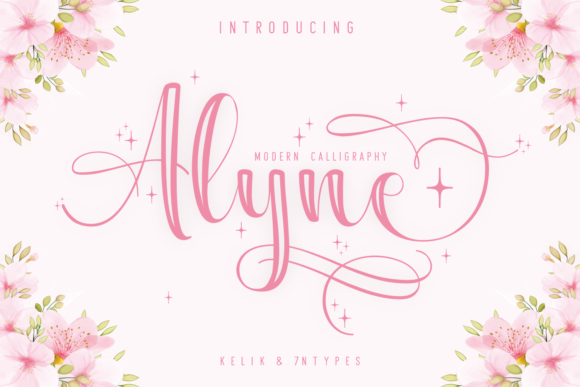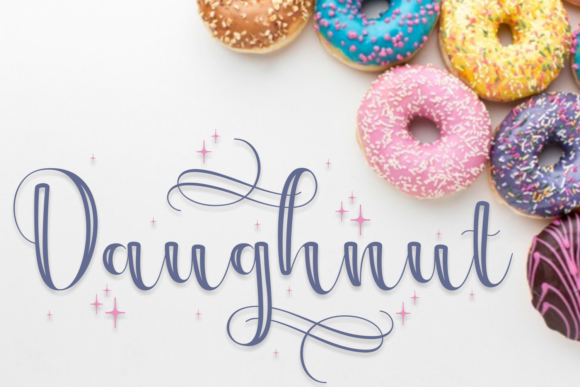
Alyne is a magical handwritten font carefully created with a touch of elegance. This font will elevate a wide range of design projects to the highest level, be it branding, headings, wedding designs, invitations, signatures, logos, labels, and much more!